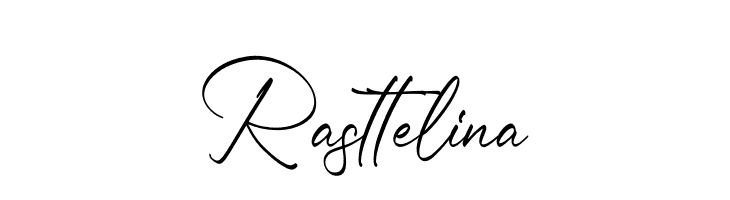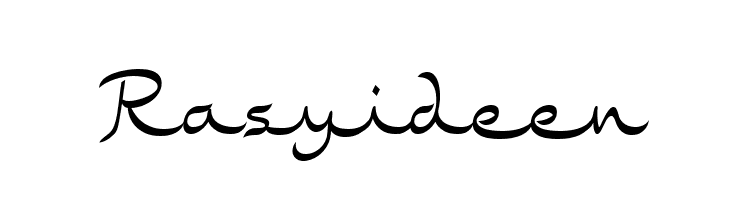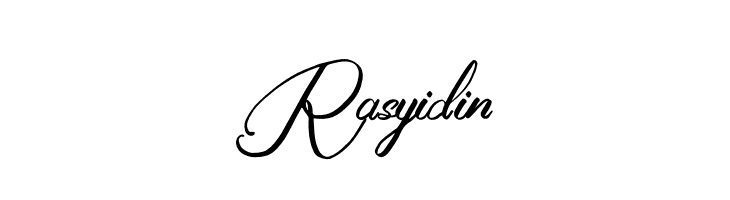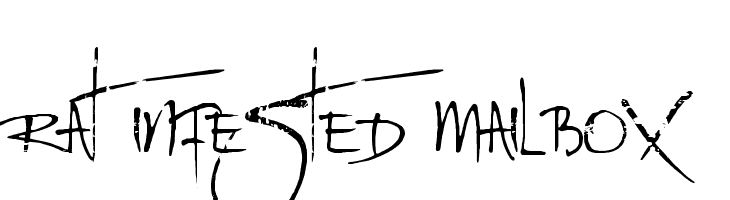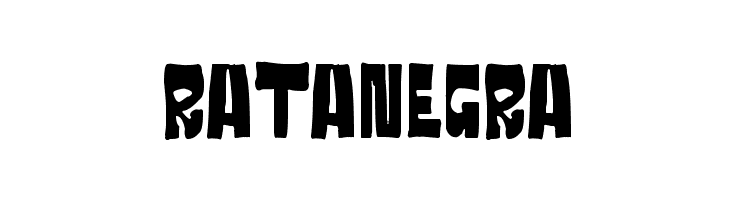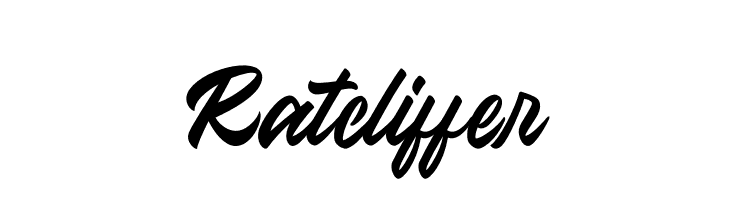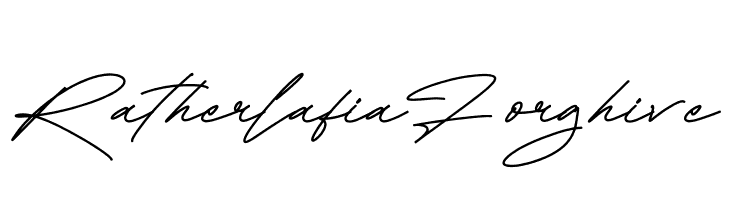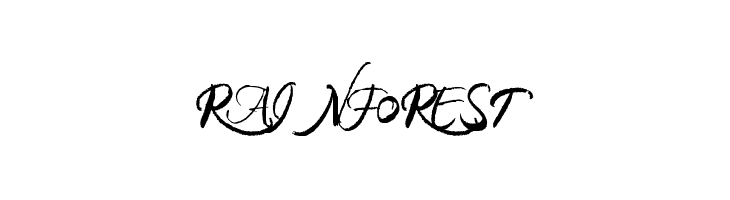
Elegant handwritten script font.
A lively, cursive font with a playful and artistic handwriting style.
A flowing, cursive script font with elegant, interconnected characters.
An elegant script font with flowing, cursive lines and ornate uppercase letters.
A chaotic, distressed font with erratic strokes and a rebellious aesthetic.
A bold, playful font with a hand-drawn, quirky style.
A bold, cursive font with a flowing, handwritten style.
A bold, dynamic script font with a cursive, handwritten style.
A lively handwritten font with fluid, expressive strokes.
A sophisticated, elegant handwritten font with fluid, cursive strokes.